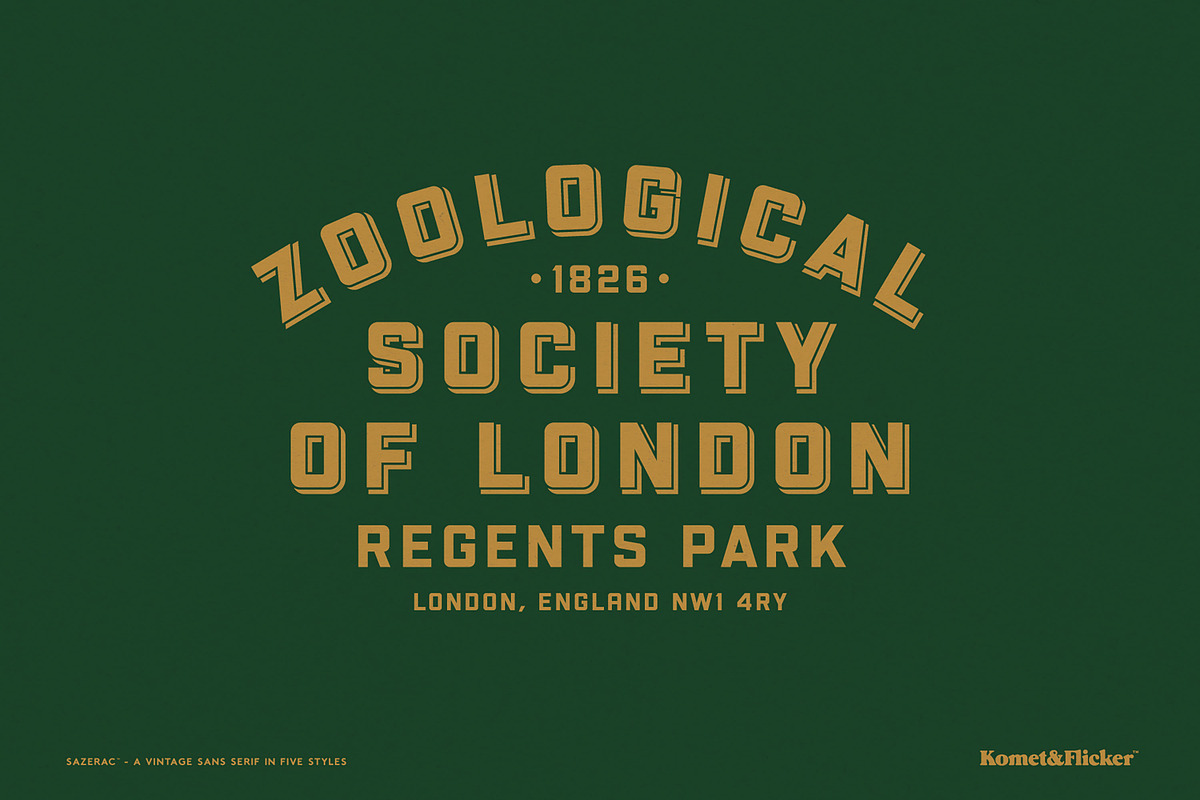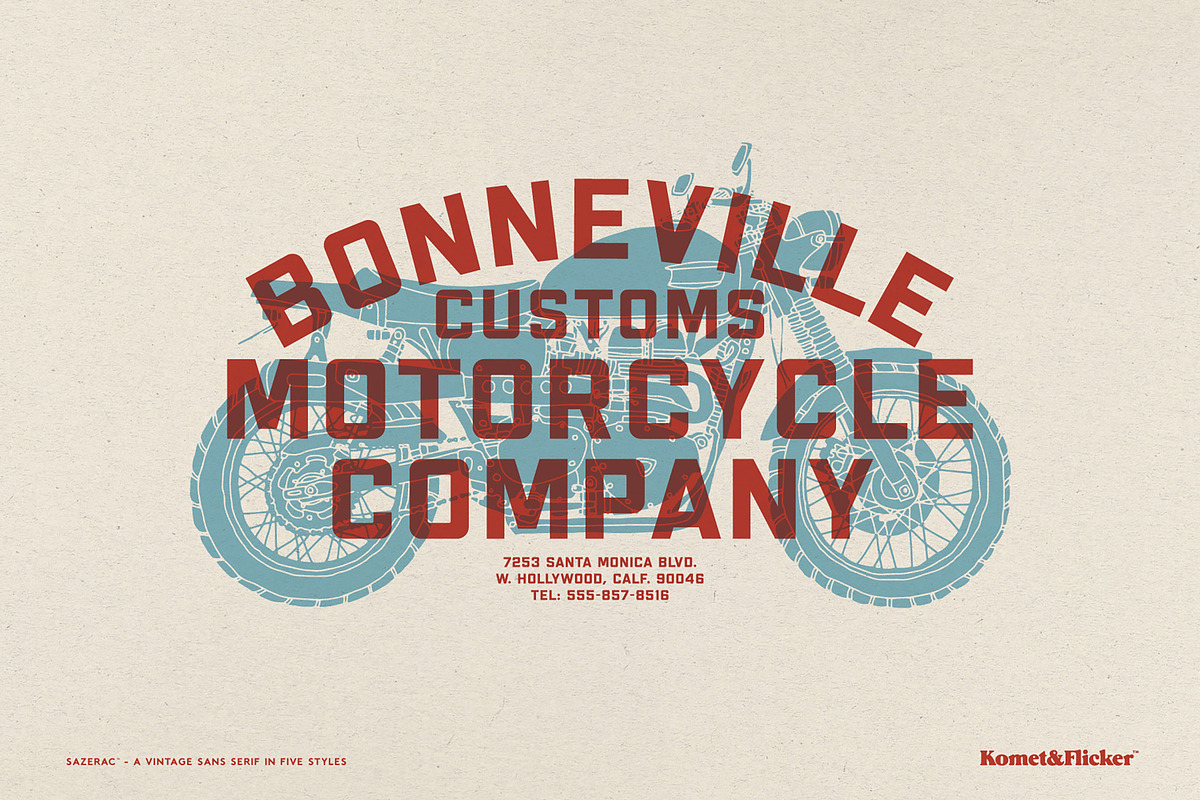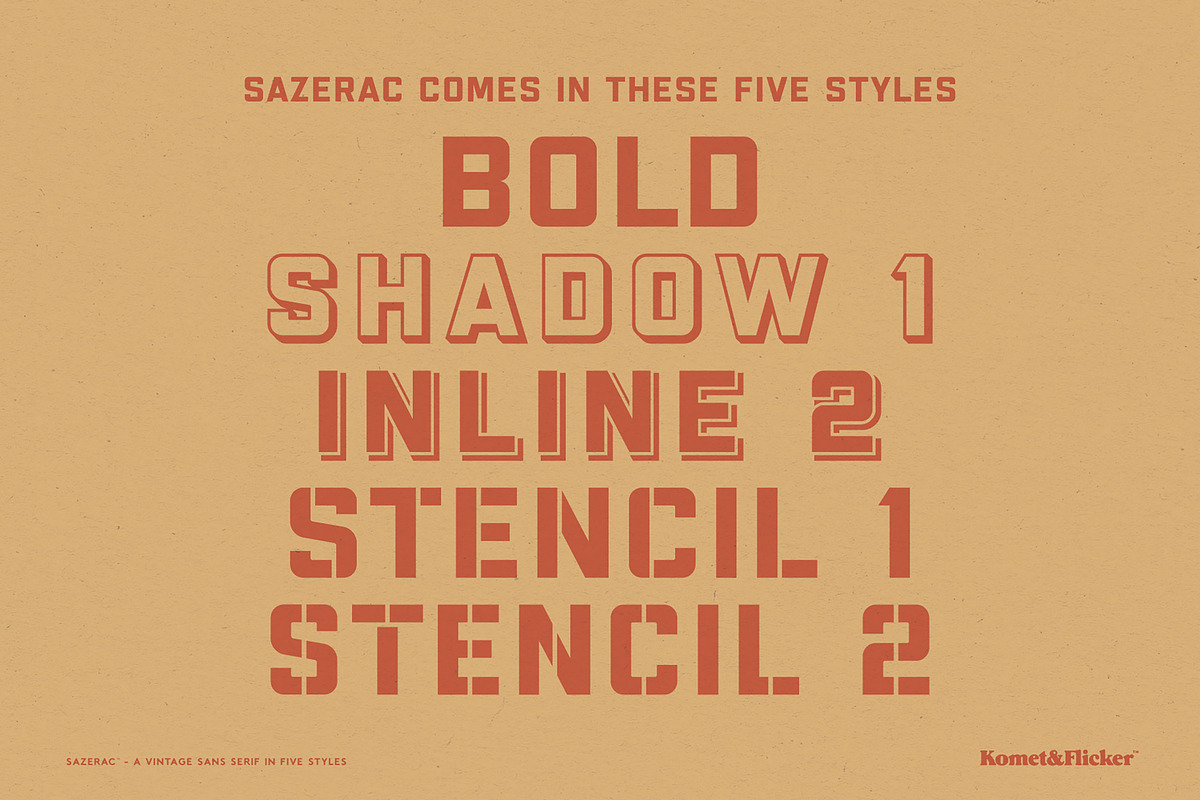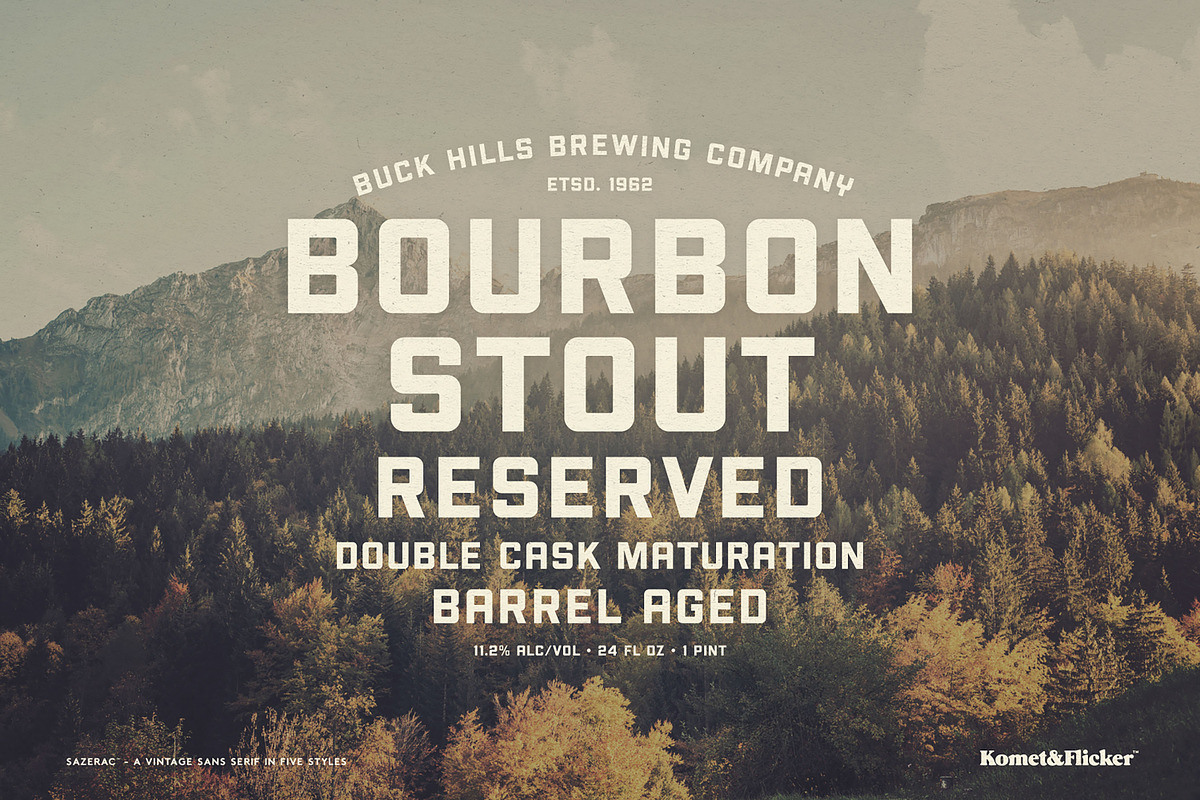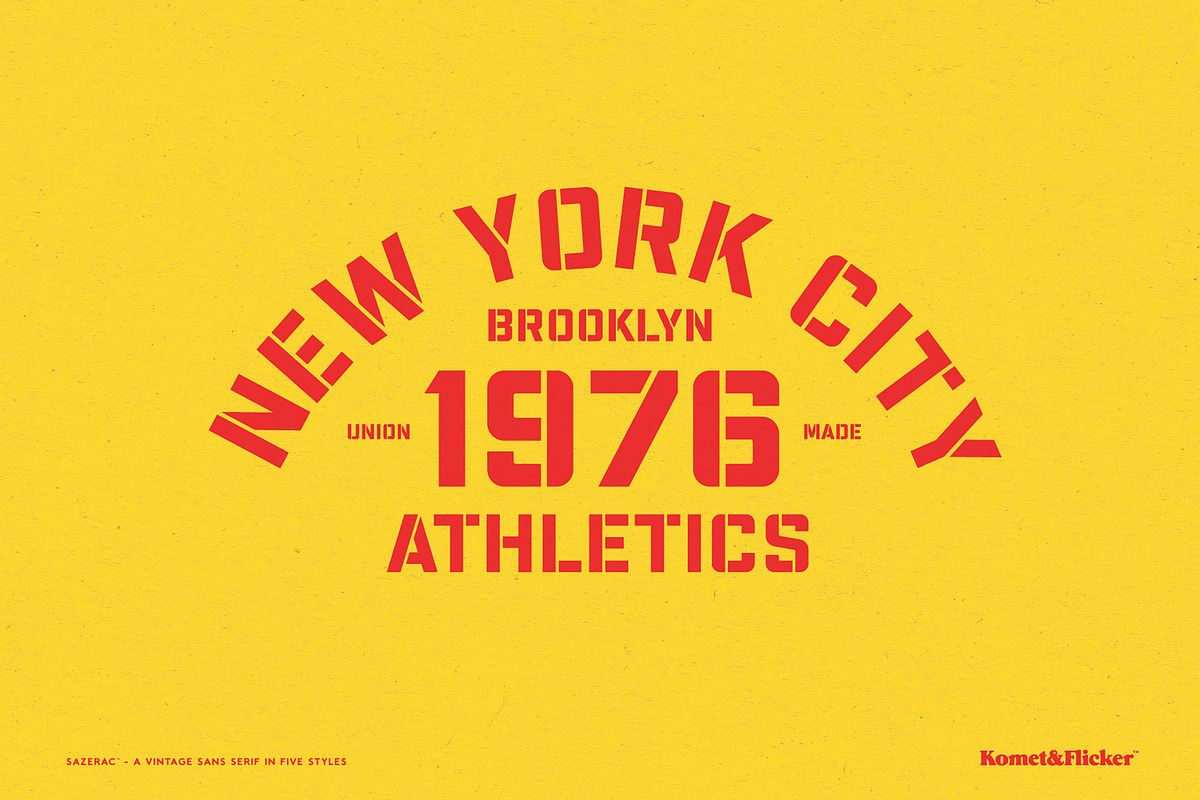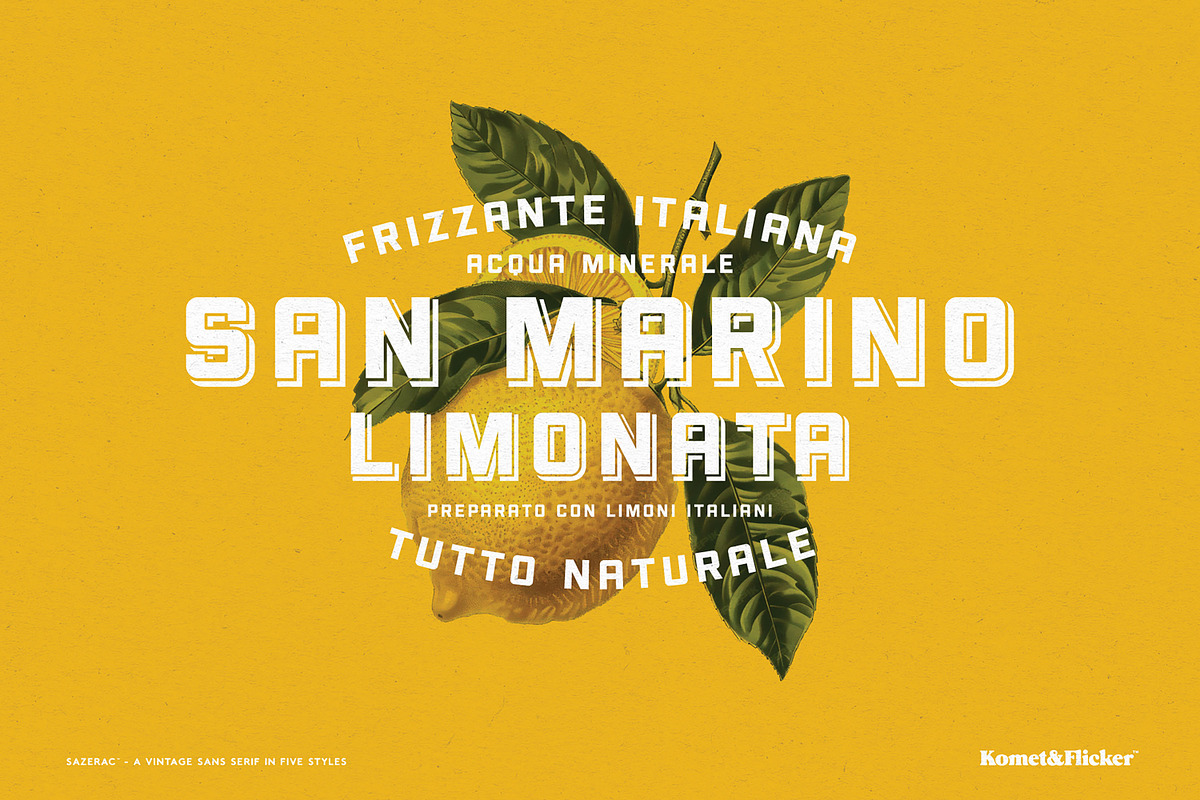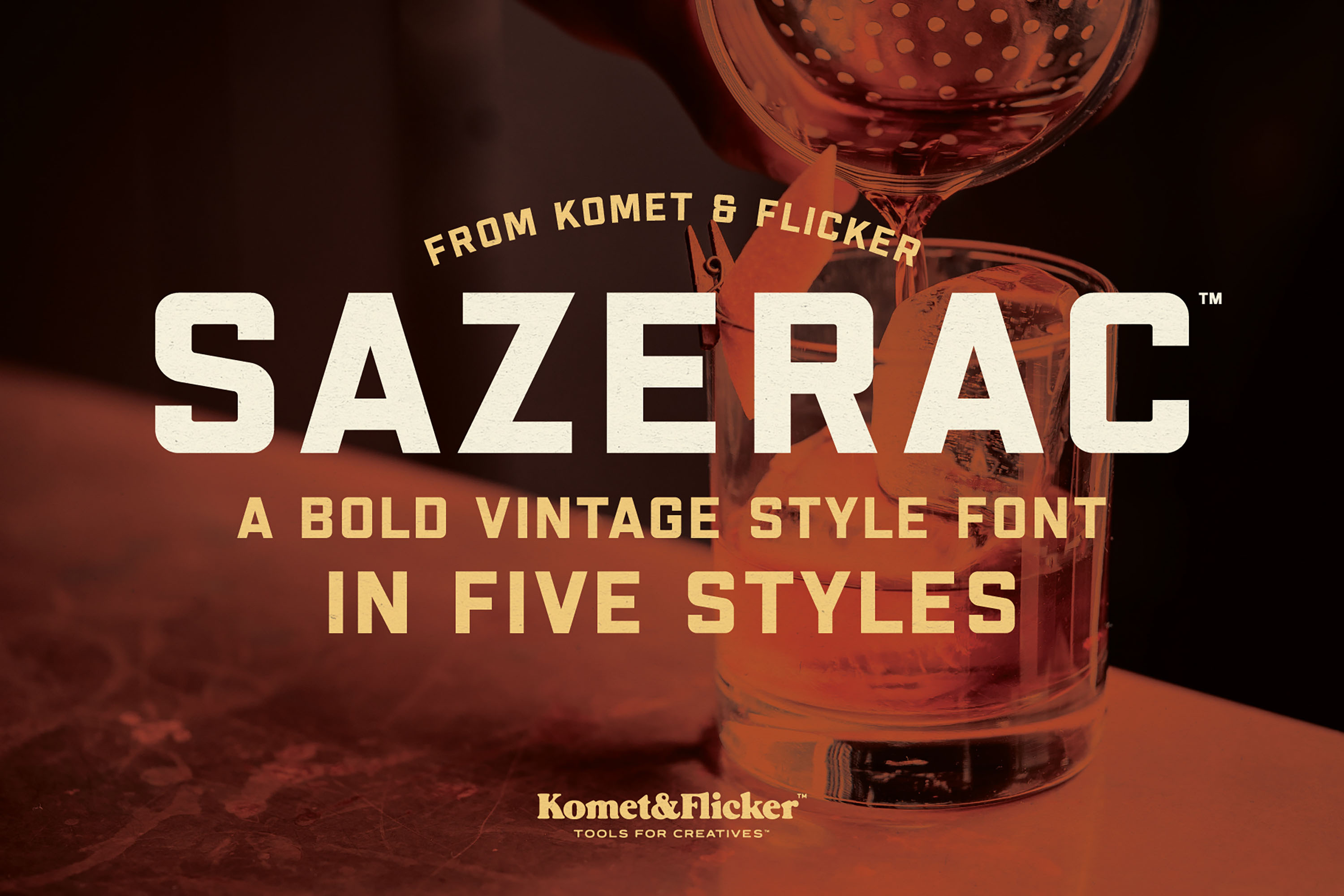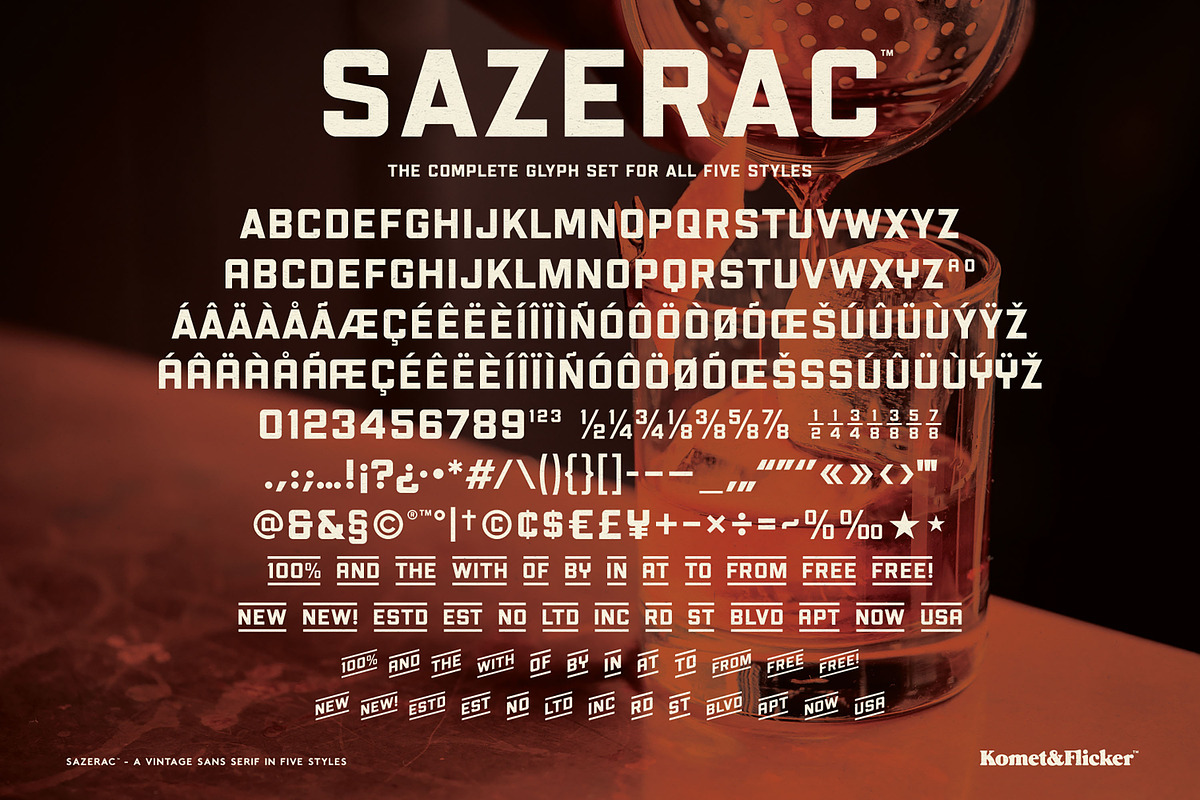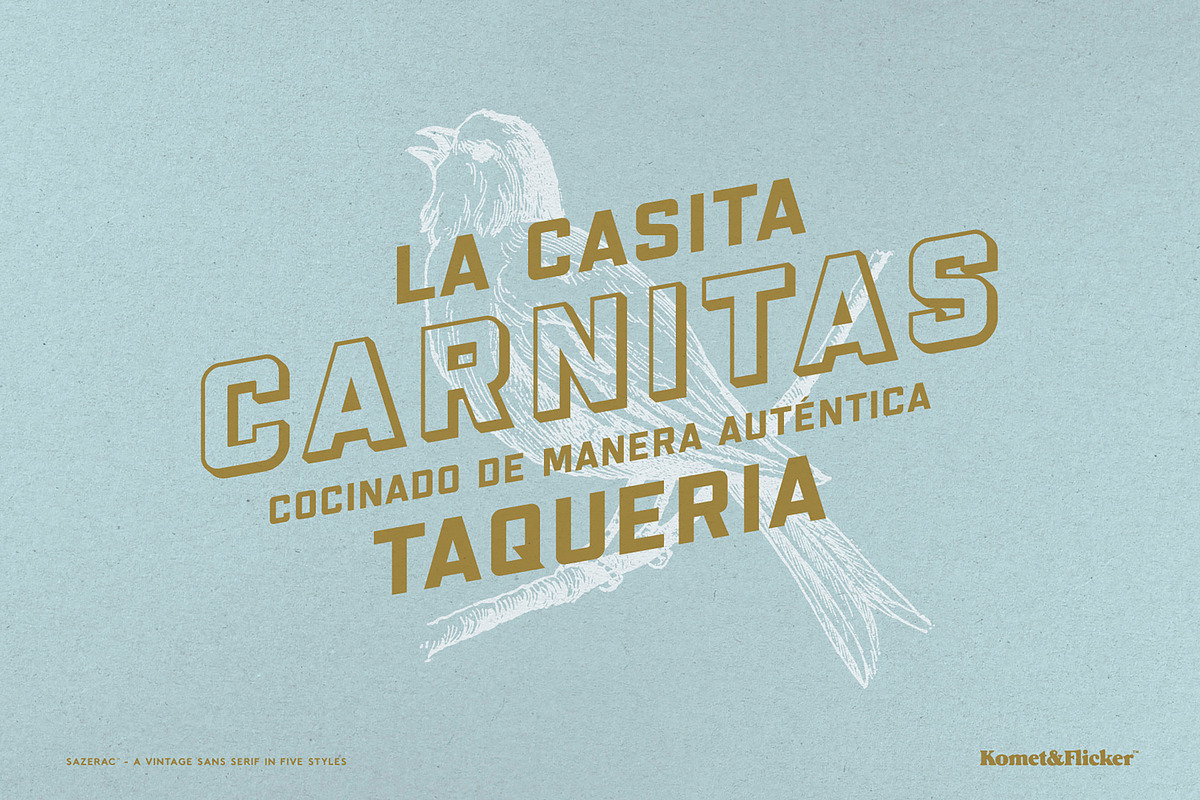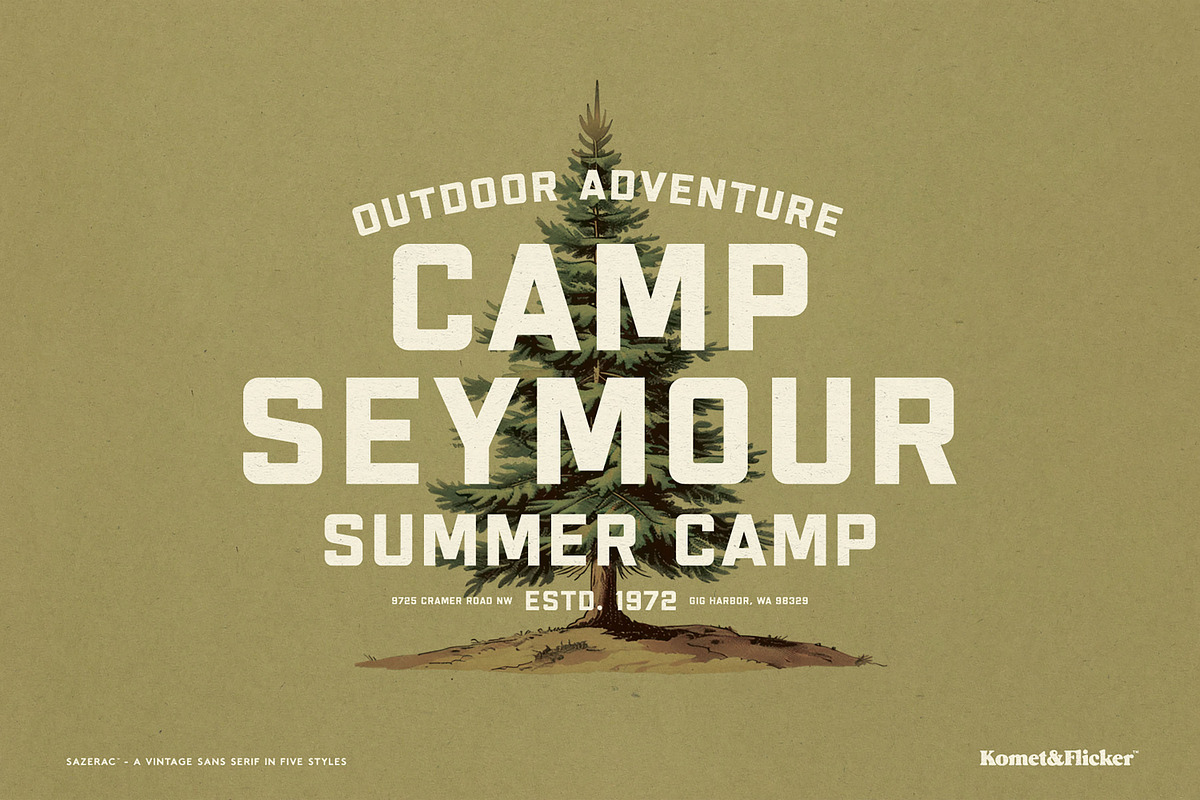
SAZERAC – A Bold Vintage Style Font
SAZERAC is a bold, vintage-style sans serif font built for designs that demand attention. With its strong, confident character, SAZERAC brings a timeless, classic feel to logos, headlines, and branding materials. The family comes in five versatile styles, giving you the flexibility to mix and match styles for any creative project. Whether you're crafting a vintage-inspired design or simply need a font that commands the page, SAZERAC delivers a lasting impression.
THIS FONT COMES IN FIVE STYLES
SAZERAC Bold
SAZERAC Bold Shadow
SAZERAC Bold Outline Shadow
SAZERAC Bold Stencil No. 1
SAZERAC Bold Stencil No. 2
THIS FONT INCLUDES
Full A-Z uppercase latin character set
Select European specific characters
Includes alternate characters for A, M, Q, S, and Y
Two styles of pre-made common fractions
Numbers, punctuation, and select symbols
Set of 25 custom connecting word glyphs in two styles